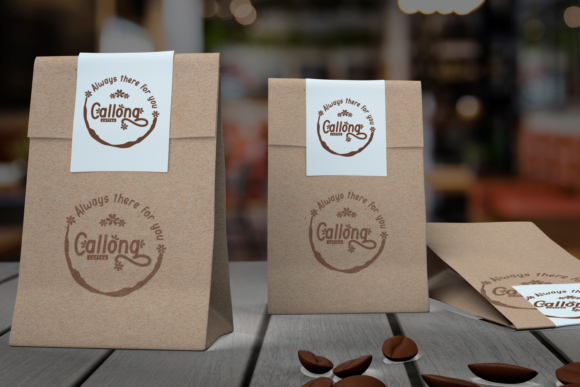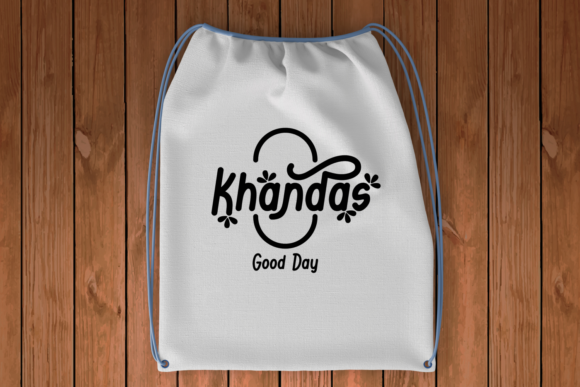
Introduction to Khendedes Font
Khendedes is a stunning and fun display font with a natural feel.
Fall in love with its contemporary vibe .
Why Choose Khendedes Font?
Khendedes Font offers exceptional quality and versatility, making it a valuable addition to your design toolkit. Whether you’re creating for personal projects or commercial use, Khendedes Font delivers professional results.